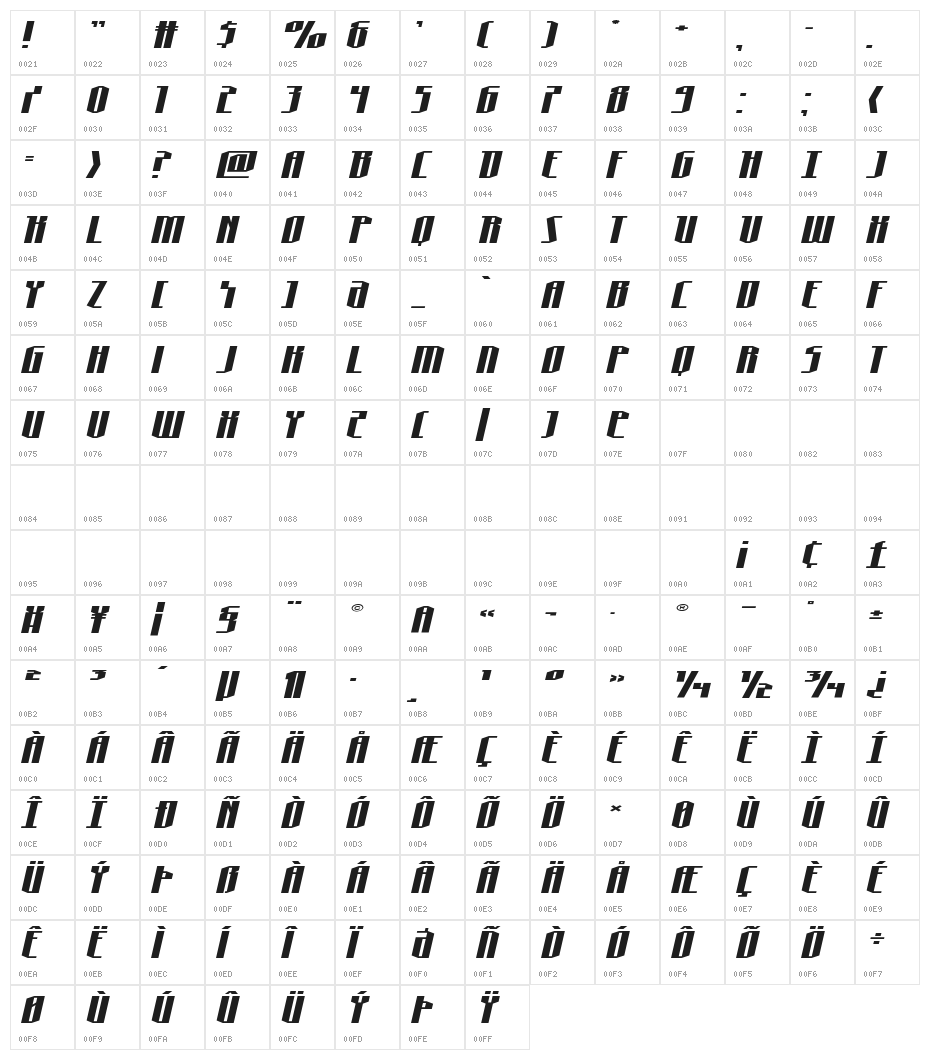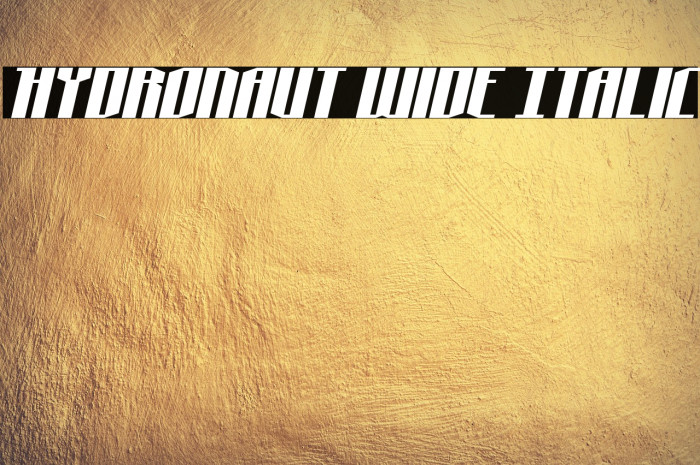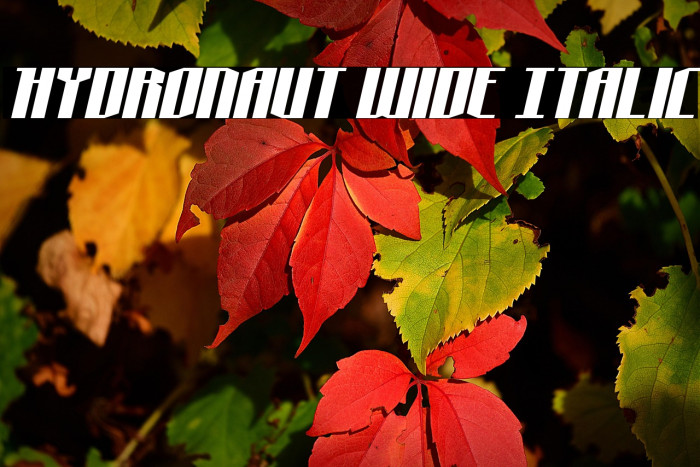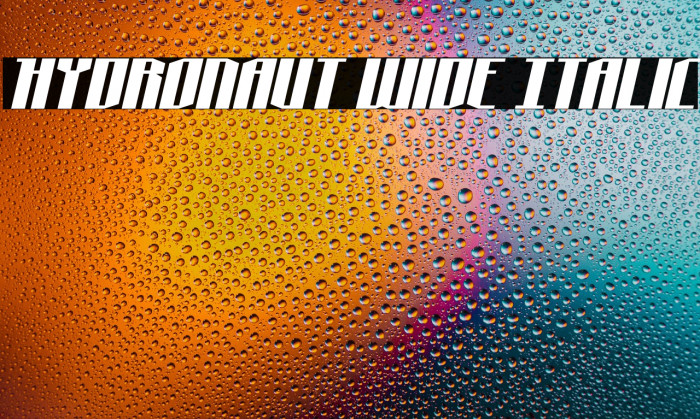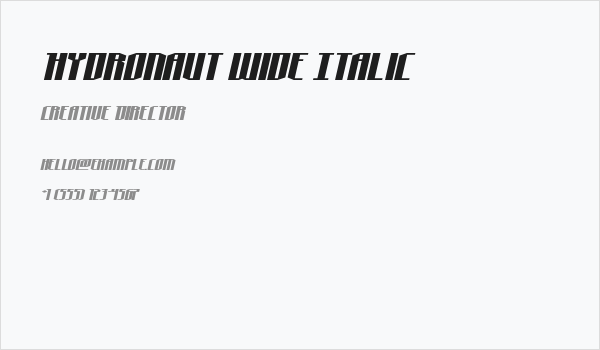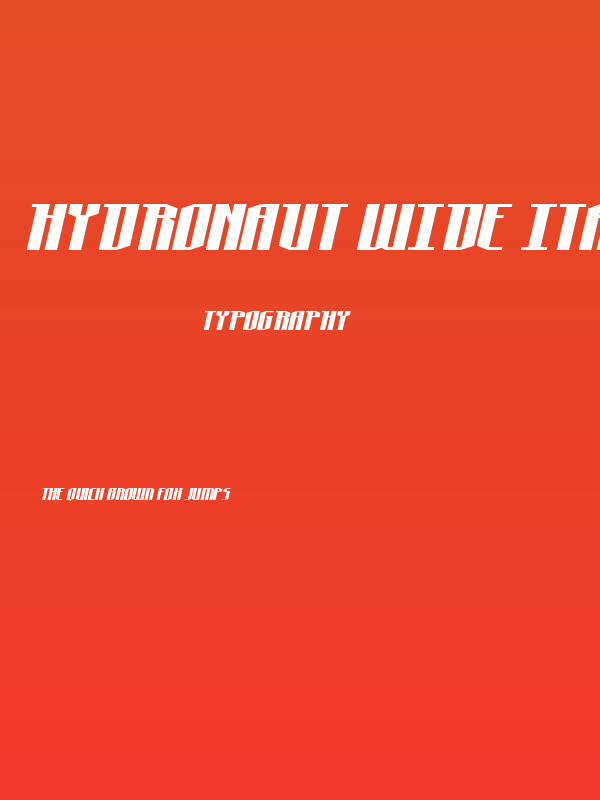
Hydronaut Wide Italic Font
Hydronaut Wide Italic Description
This font features a bold and dynamic design with a futuristic flair. The characters are wide and italicized, giving them a sense of motion and energy. The sharp angles and geometric shapes create a modern and edgy appearance, making it suitable for attention-grabbing headlines and titles. The uppercase and lowercase letters maintain a consistent style, while the numerals and special characters complement the overall aesthetic. The font's unique style is ideal for projects that require a strong visual impact.
| Proposed Projects | Ideal for sci-fi themed designs, video game titles, movie posters, and branding that requires a modern and bold look. |